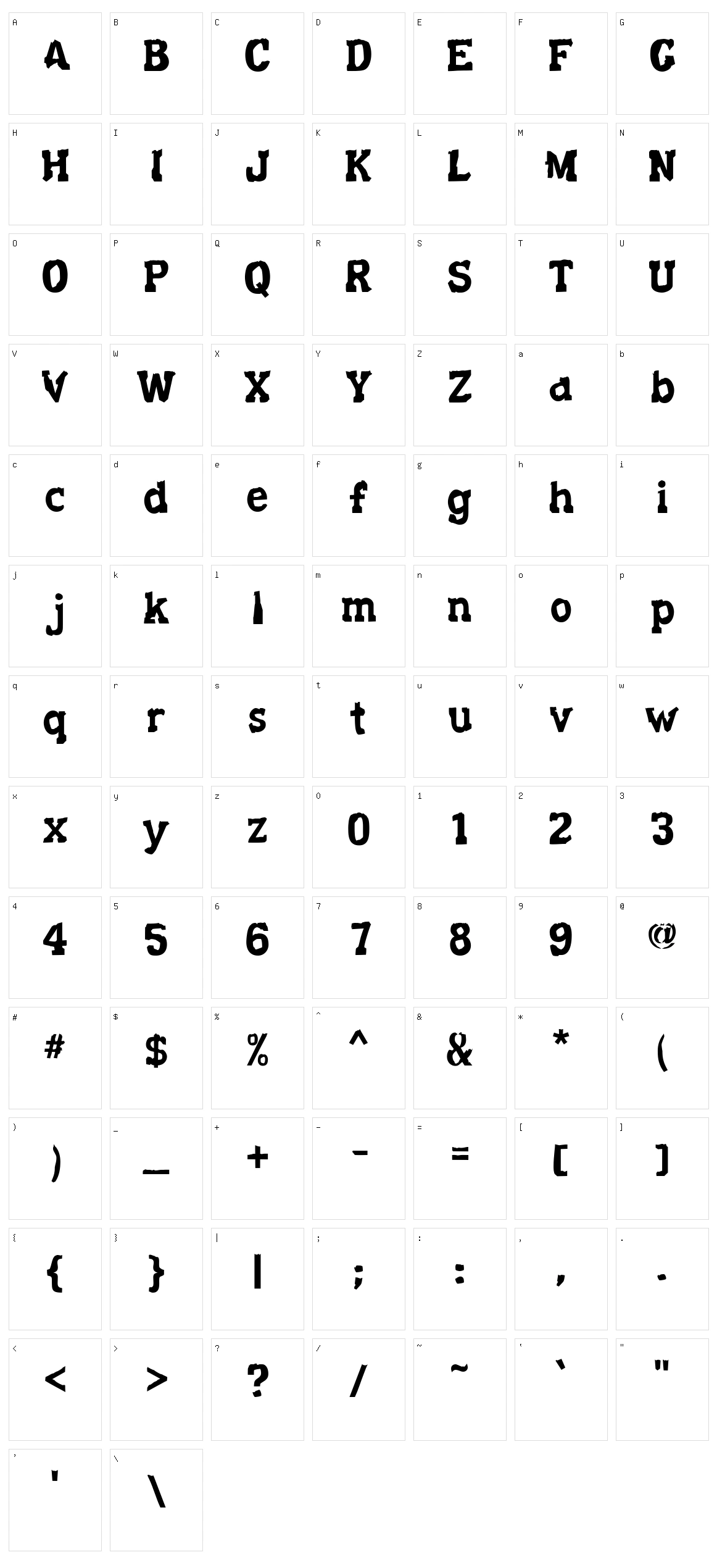
The free font Decaying Kuntry is carefully designed by Brain Eaters Font Co., showcasing a thoughtful balance of creativity and usability and falls under the Eroded font style. When you download the ZIP file, it contains only 161.45 KB of font files, making it lightweight and quick to download. Please review the license details below to understand permitted usage and distribution rights. If license information is not available, we recommend using this font for personal projects only or contacting the author directly for commercial usage permissions.